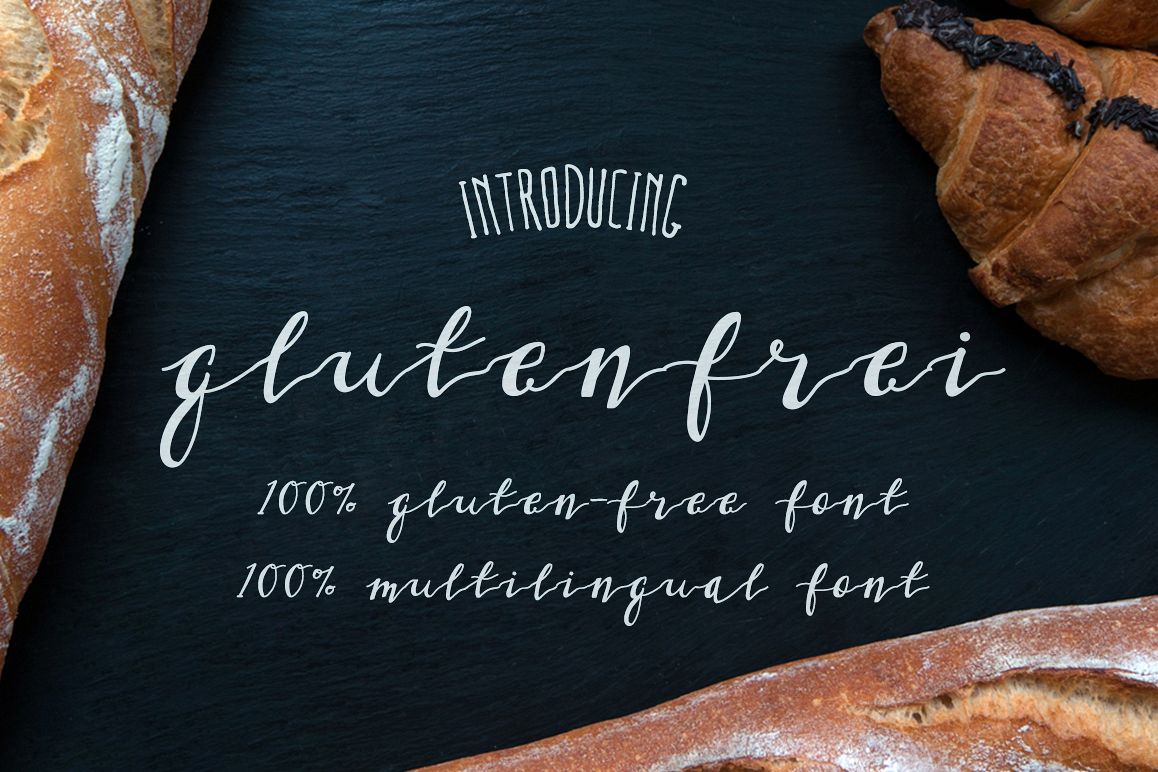
Gluten Frei Multilingual Script Font
NF-GlutenFree-Regular
Gluten Frei Multilingual Script Font it's the first 100% gluten-free typeface! It's a multilingual script font with Greek (of course), Latin characters and diacritics. Not only it can be used on social media content, but also for branding or packaging. Especially if you are looking for a font for Instagram quote posts or any other social media content, this typeface is for you!
In conclusion, Gluten Frei Greek Font is a script typeface with:
• Extended Latin character set,
• Greek character set,
• punctuation marks,
• diacritics,
• numerals and
• 16 ligatures